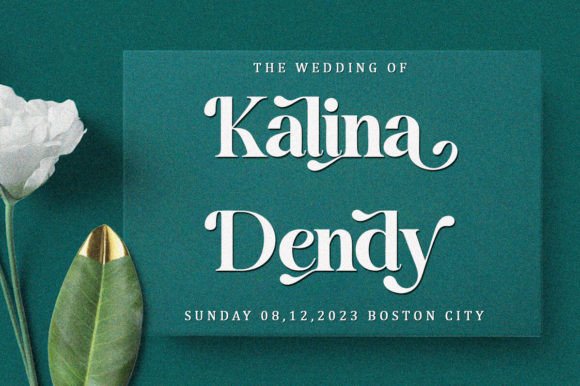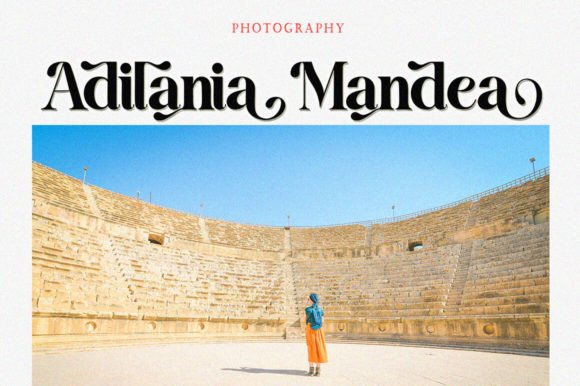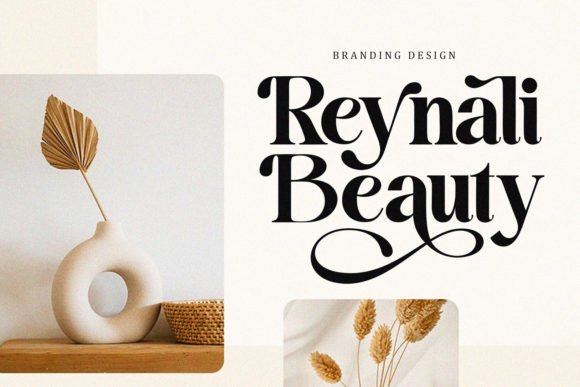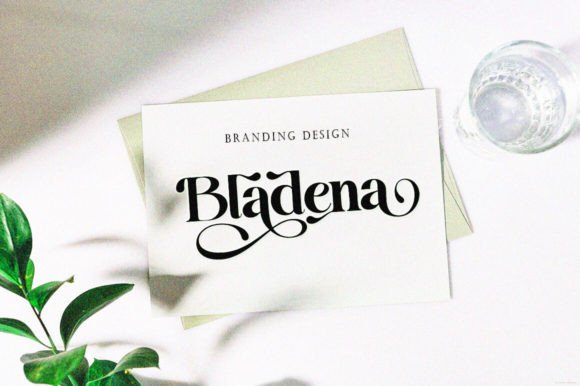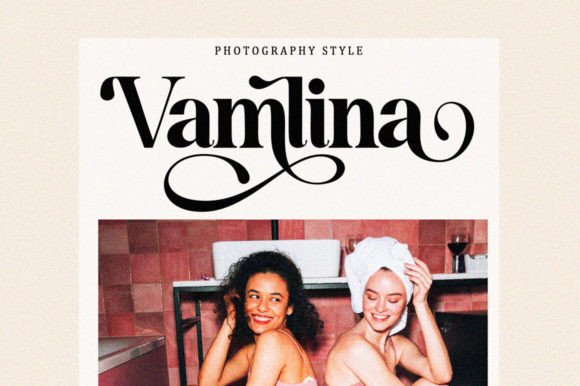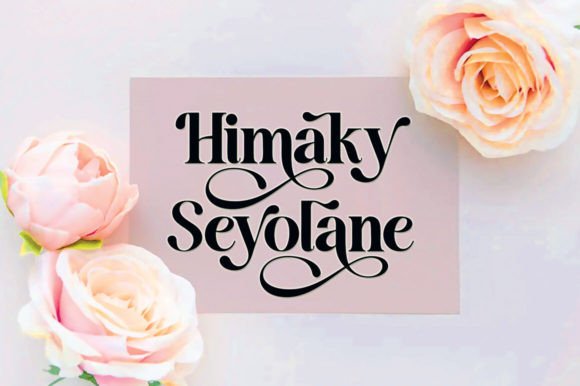
Introduction to Honey Geladen Font
Honey Geladen is a beautiful, versatile serif font.
It is characterized by a modern and luxurious style in a classic form, but also a friendly and playful style in bold Honey Geladen has glyphs to give crafters more options in designing.
Key Features of Honey Geladen Font